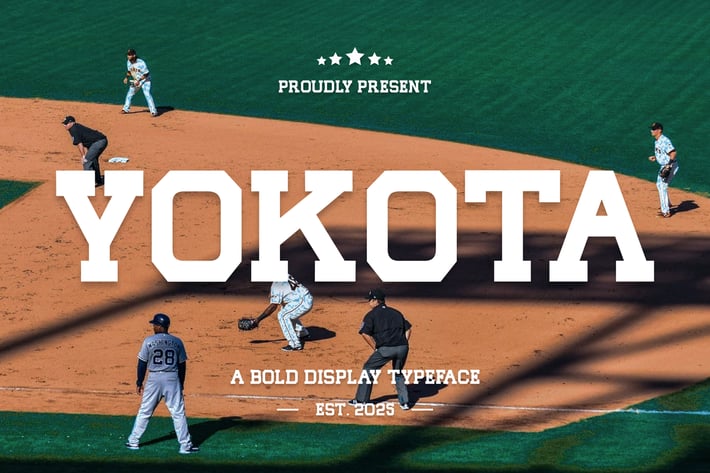
Yokota Bold Font
YOKOTA is a bold display typeface designed with classic varsity flair and strong athletic energy. Its sharp block serifs, solid construction, and clean forms make it a top choice for sports branding, college merchandise, team posters, and retro-inspired design. Whether you’re crafting a school banner or energizing a sports logo, YOKOTA delivers power and pride in every letterform. Stand out with a font built for champions.